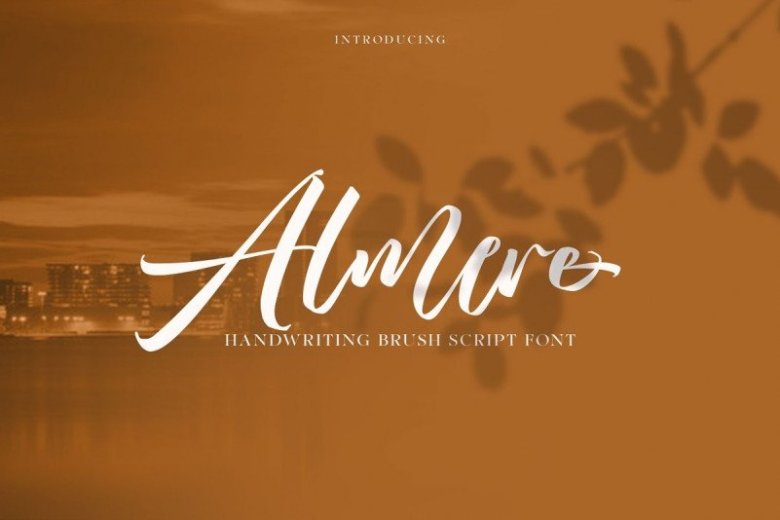
Almere Script Font Free
Almere Script Font is a bold script, with a strong and masculine style that is equipped with some unique ligatures and alternates so that it can provide an interesting look. Made from font designer named joelmaker. It’s a manual handwriting font with using a brush pen, which are arranged very neatly, so that it makes a font script, with a shape like a wavy calligraphy, modern, unique, smooth & cleans.
Almere Script, can be used for various purposes such as Magazine Title, Poster, Logo, T-Shirt, Sub Title, Business cards, Magazines, Book Covers, Wedding Invitations,Templates Instagram Story Post, Greeting Cards, Quotes, etc.